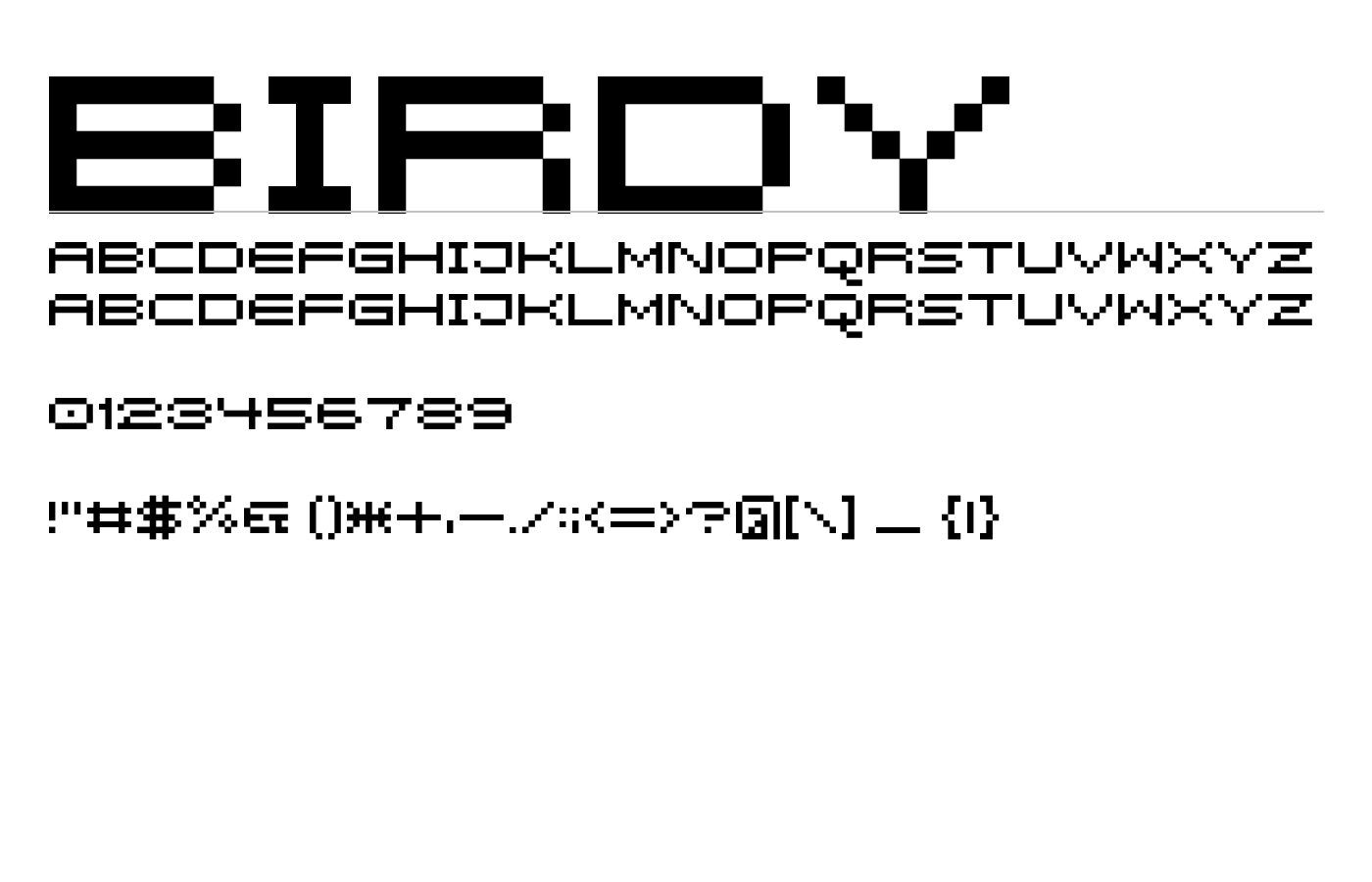
Birdy Font is a pixel-style, monospaced sans serif typeface with a rigid, blocky appearance and consistent stroke weight, evoking a retro, digital feel reminiscent of early computer or arcade text. Its sharp, geometric forms and high x-height make it ideal for designs needing a nostalgic yet clean and technical look, perfect for video game graphics, tech branding, or creative digital projects. This font works best in headlines, logos, and interfaces where clarity and a vintage digital vibe are desired.
Birdy Font
About Birdy Font